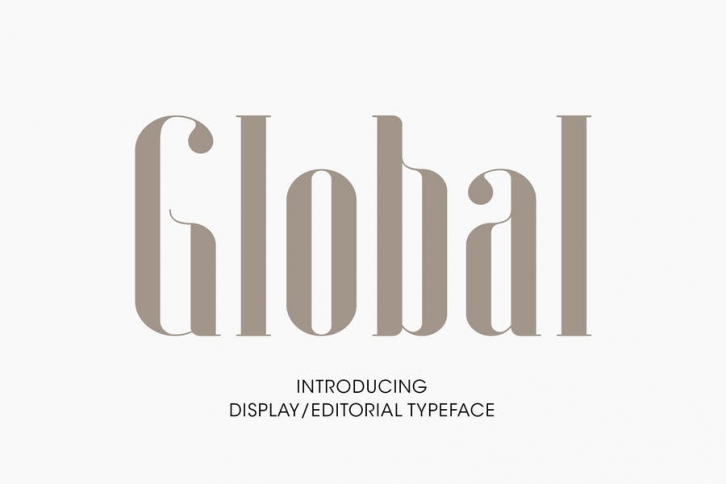
Global is a clean and condensed serif typeface. Slender lines and great legibility make it perfect as a display font. With curves in all the right places, it is great for editorials and other commercial use.